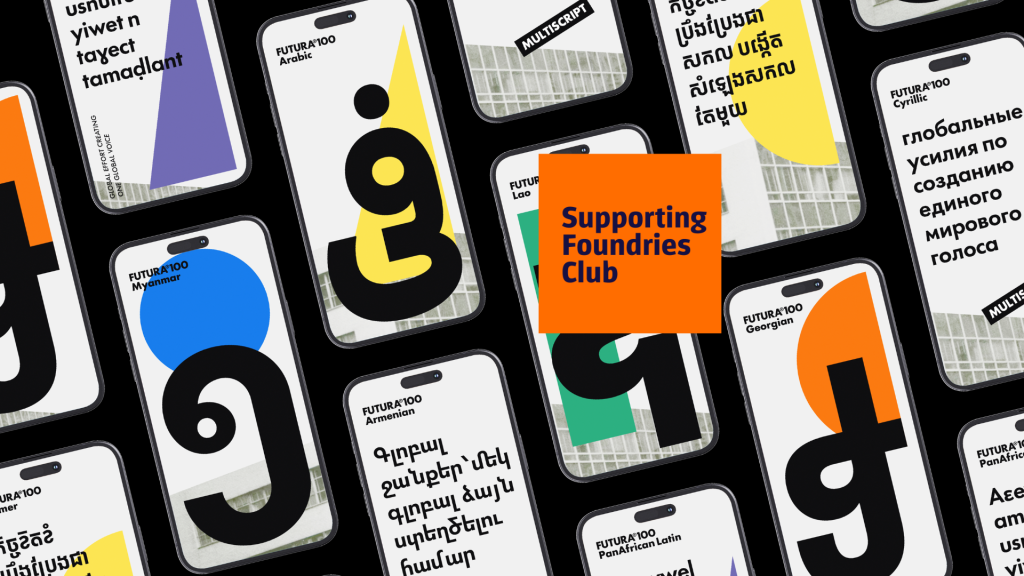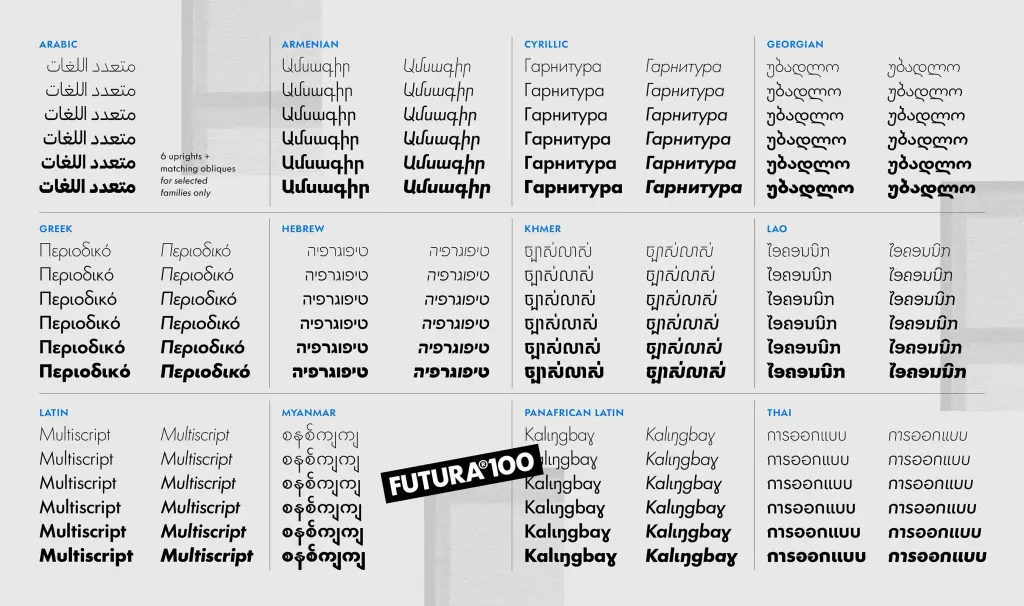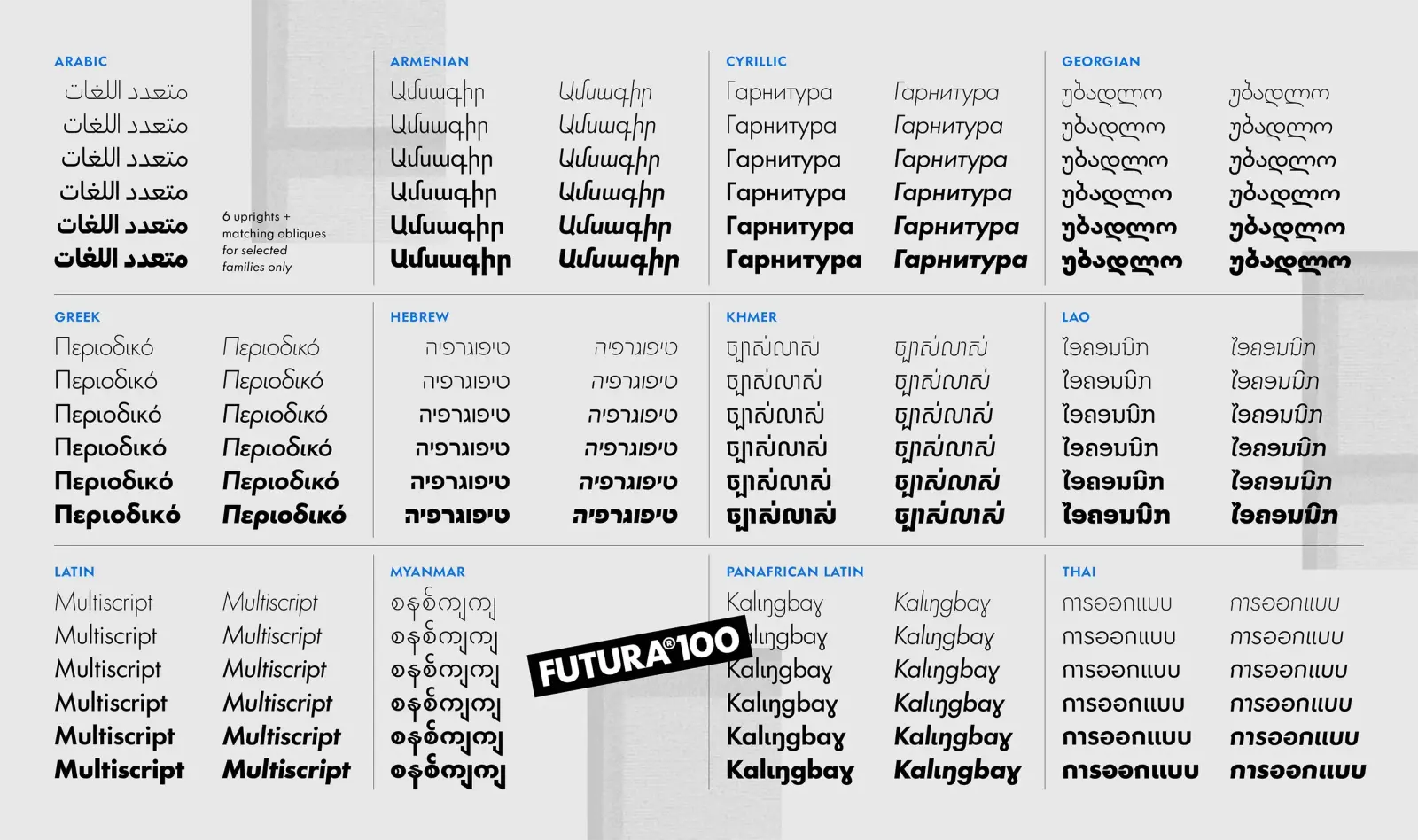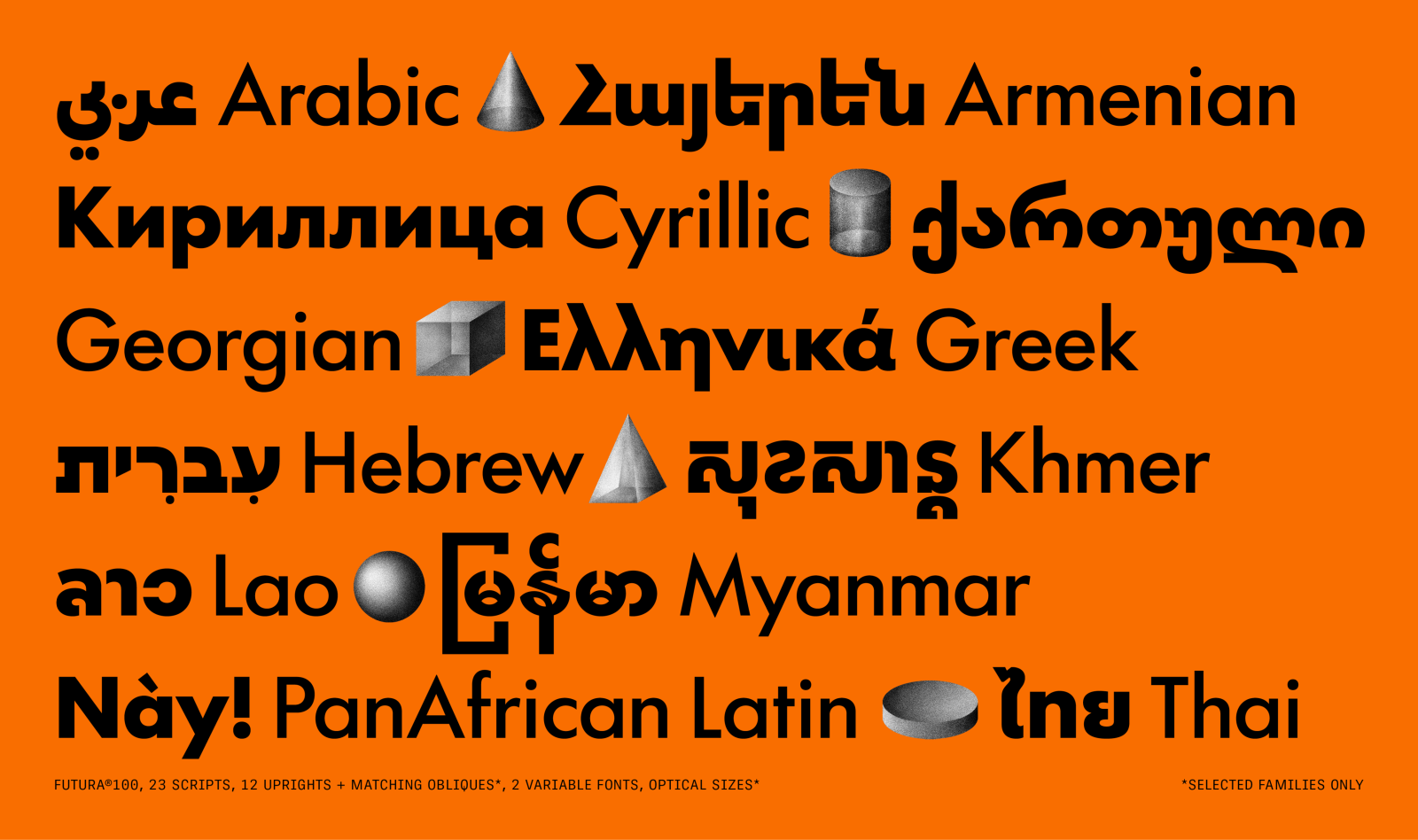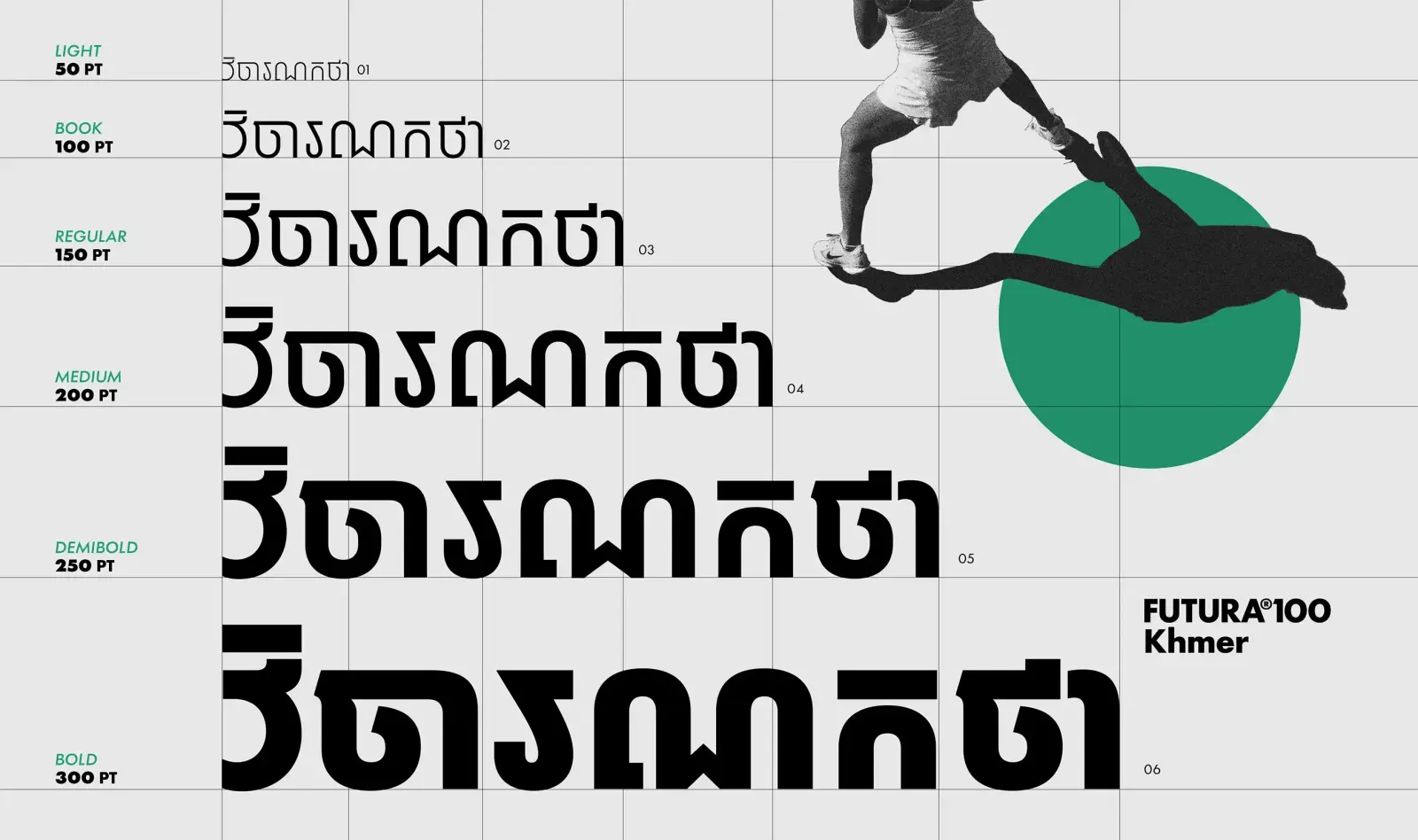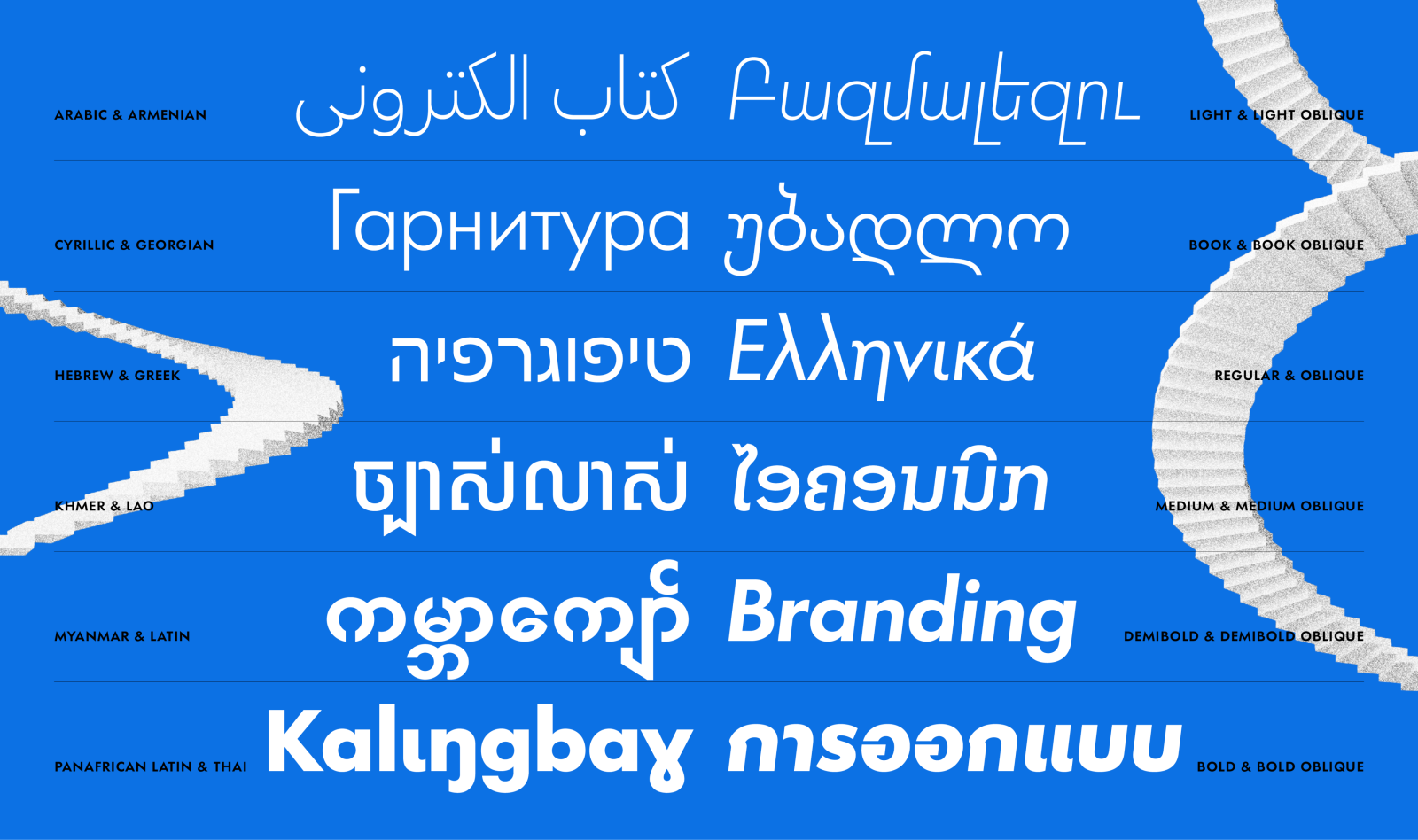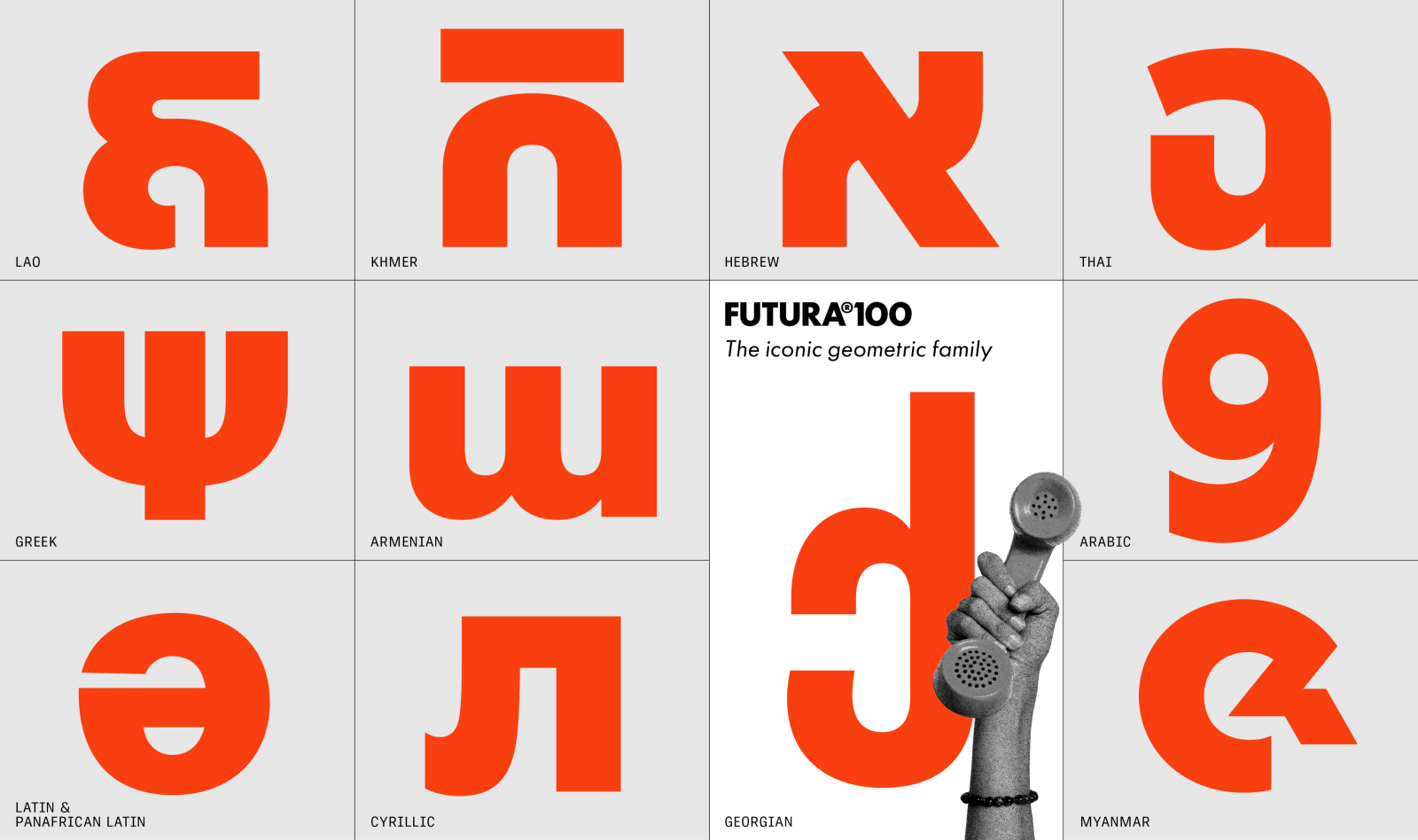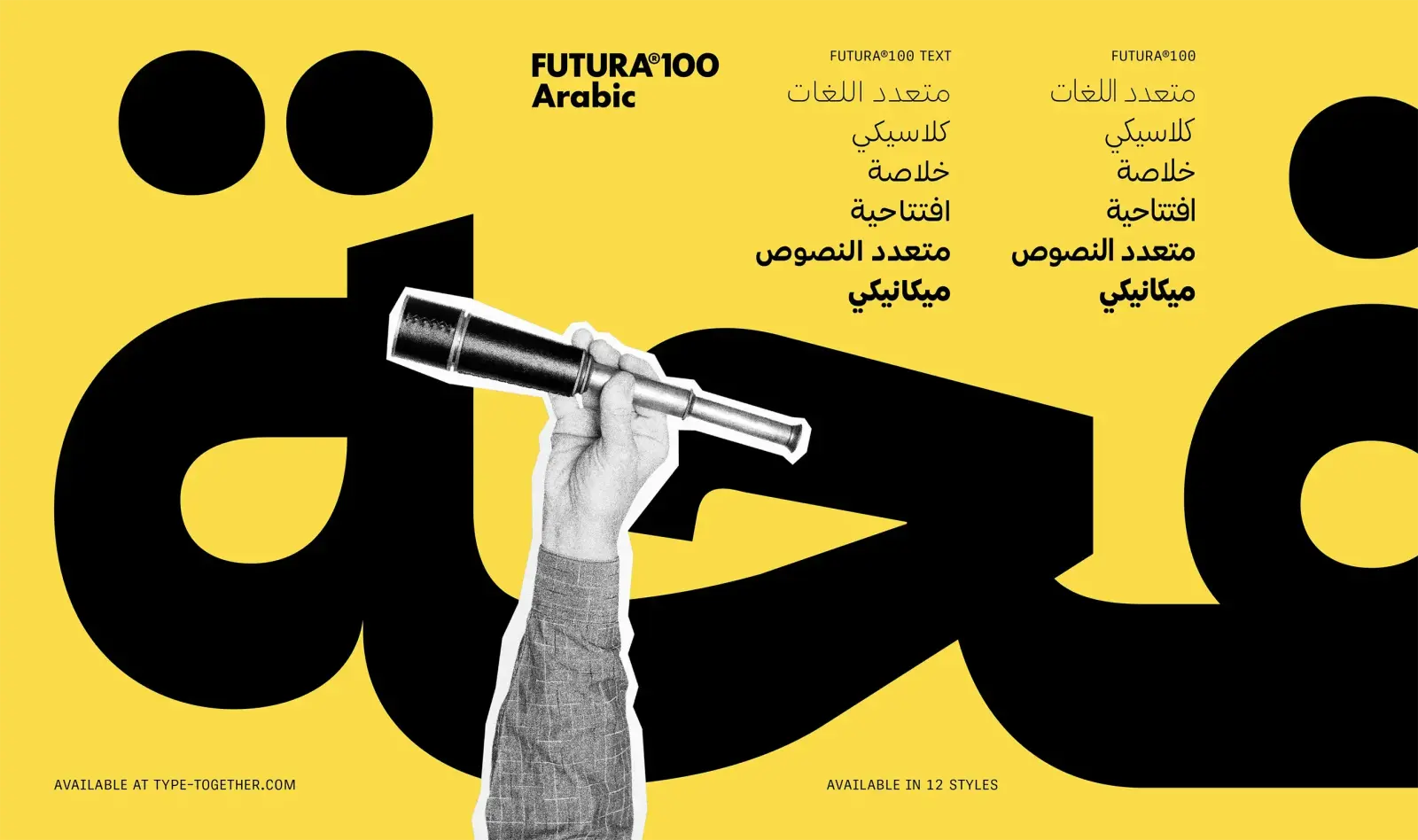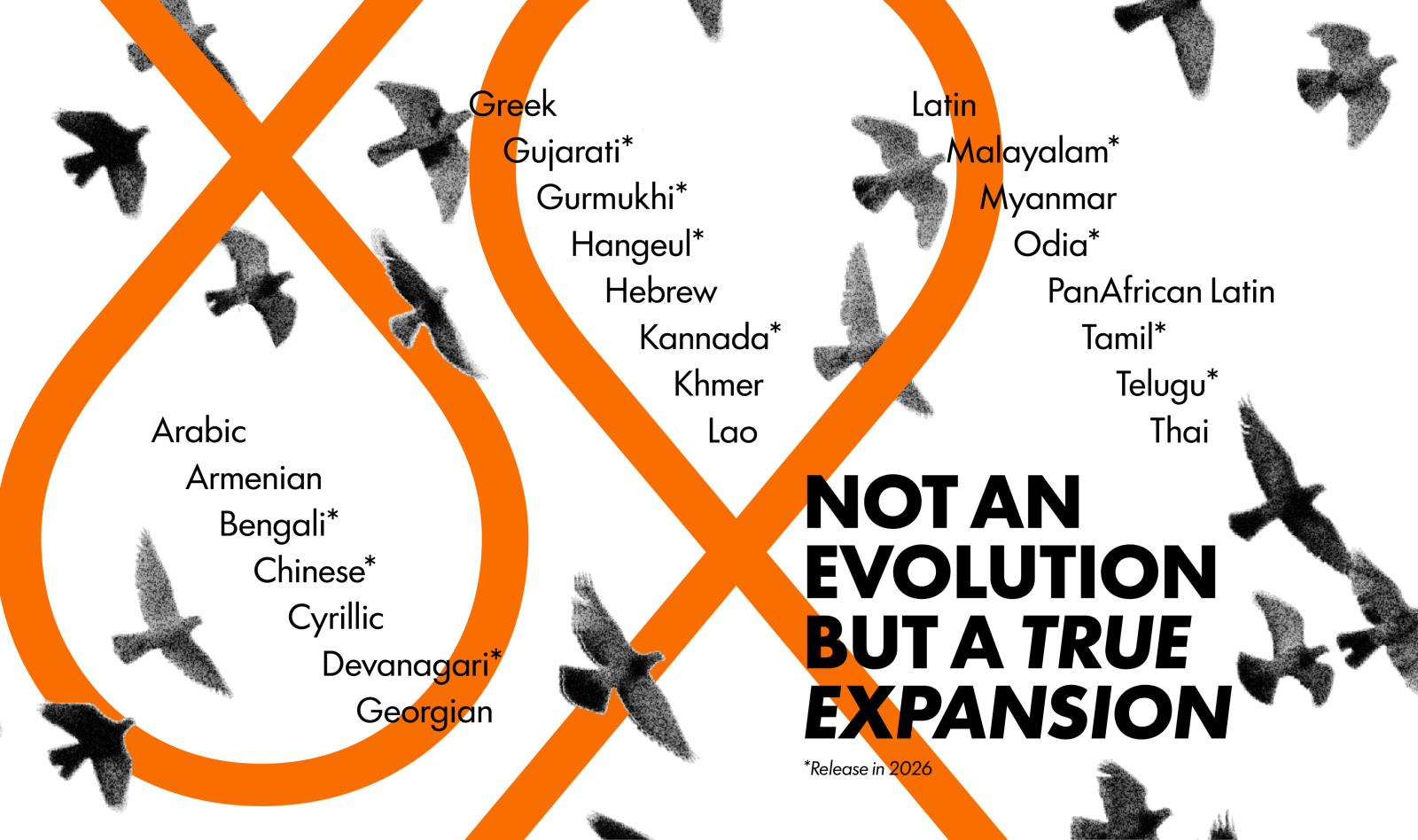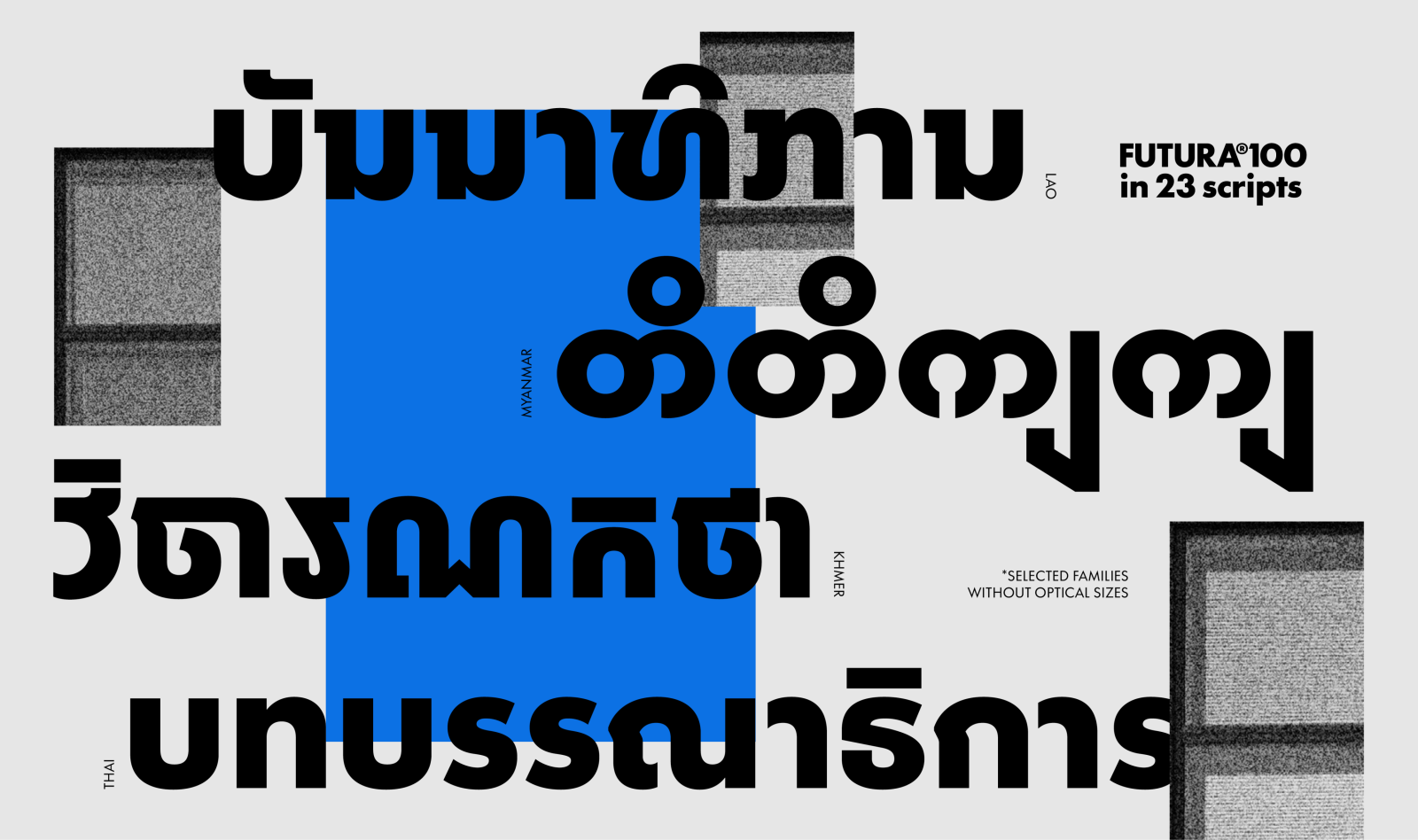
Few typefaces have shaped modern visual culture as profoundly as Futura®. Designed in 1927 by Paul Renner, its geometric clarity became synonymous with progress, efficiency, and modernity. But while its influence was global, its reach was not. For nearly a century, Futura® remained firmly rooted in the Latin script, leaving the rest of the world to adapt or go without.
Now, on the cusp of its 100th anniversary, TypeTogether, in concert with Bauer Types, has reimagined this design icon for today’s interconnected world. Futura®100 is not just a revival - it is a reinvention, designed to speak in the voices of cultures across the globe.
From Archival Research to Global Dialogue
The project began with two years of archival research into Renner’s original drawings, philosophy, and intent. Rather than simply reconstructing his work, Veronika Burian and José Scaglione, TypeTogether’s co-founders, asked a bigger question: What would Futura® look like if it had been designed as a truly global system from the start?
The answer is Futura®100 - a multiscript type family that expands Renner’s vision across cultures while maintaining his commitment to clarity and geometry.
Multiscript, Multivocal
The first release of Futura®100 spans 12 scripts: from Latin, Cyrillic, Greek, and Hebrew to Arabic, Thai, Lao, Khmer, Armenian, Georgian, Myanmar, and PanAfrican Latin. Each script includes upright and oblique styles, variable fonts, and even optical sizes to improve legibility in extended reading.
By 2026, an additional 11 major scripts, including Indic writing systems, Simplified Chinese, and Hangul, will join the family. Once complete, Futura®100 will cover over 90% of the world’s population, making it one of the most ambitious multiscript projects in type history.
But the achievement isn’t only technical, it’s philosophical. Each script was crafted in close collaboration with native type designers, ensuring cultural sensitivity and typographic authenticity. As with GRANSHAN’s ethos, Futura®100 recognizes that type design is never neutral; it is always a cultural act.
Local Expertise, Global Vision
The credits read like a world map of type design. From Azza Alameddine’s Arabic to Suppakit Chalermlarp’s Lao, from Gor Jihanian’s Armenian to Smich Smanloh and Anuthin Wongsunkakon’s leadership on Southeast Asian scripts, the project represents the collaborative labor of dozens of designers and consultants.
Together, they solved the challenge of giving Futura®’s geometry a local accent without losing its identity. Thai gained modular rhythm, Arabic leaned on geometric alternates, while PanAfrican Latin provided much-needed coverage for African orthographies. The result is not uniformity, but harmony, a family that speaks many languages with one voice.
A Typeface for the Next Century
Futura®100 is more than a typographic revival. It is a cultural project that acknowledges how design circulates globally today. For multinational brands, NGOs, and publishers, it offers a coherent voice across languages. For local readers, it offers recognition, dignity, and legibility in their own scripts.
By expanding one of the 20th century’s most iconic typefaces into a 21st-century multiscript system, TypeTogether has not only honored Renner’s legacy but also redefined it: from a symbol of European modernism into a global platform for communication.